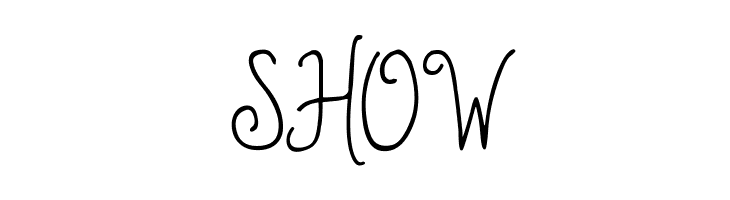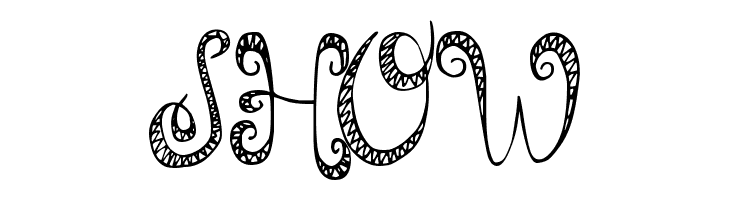
DJB HappilyEverAfter Font
Font by Darcy Baldwin
A whimsical, hand-drawn font with decorative uppercase letters and playful lowercase characters.
DJB HappilyEverAfter2 Font
Font by Darcy Baldwin
A whimsical, playful script font with a handwritten style.